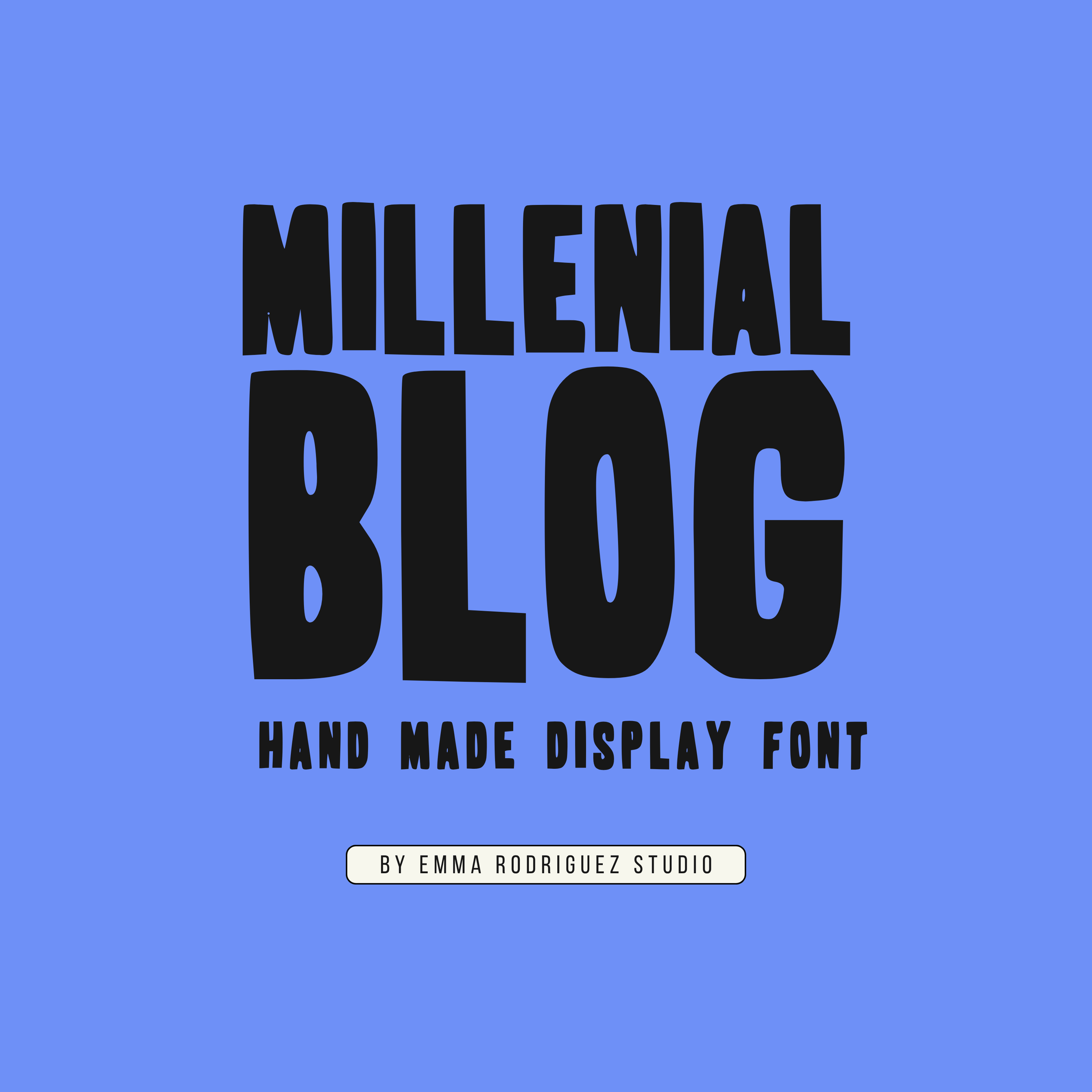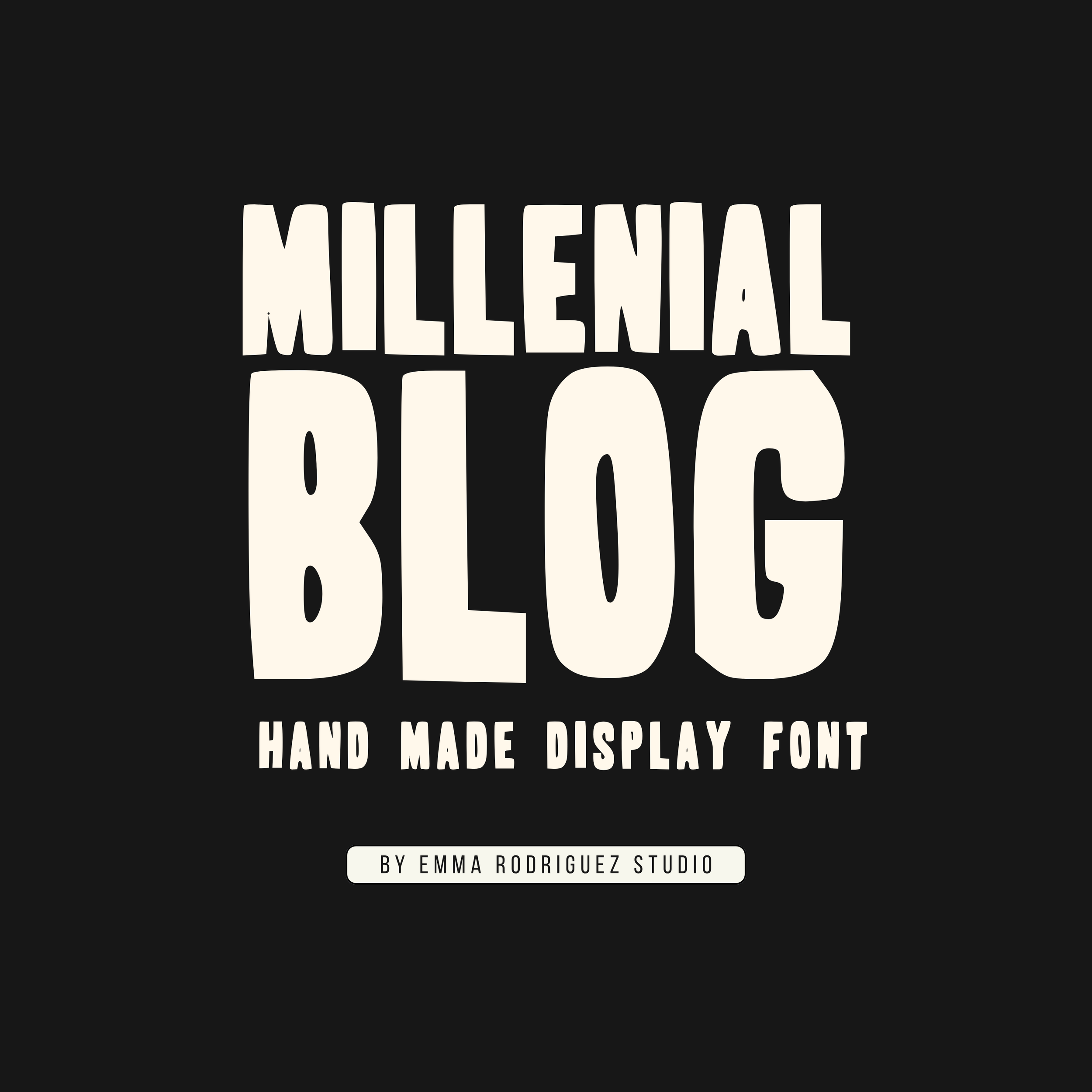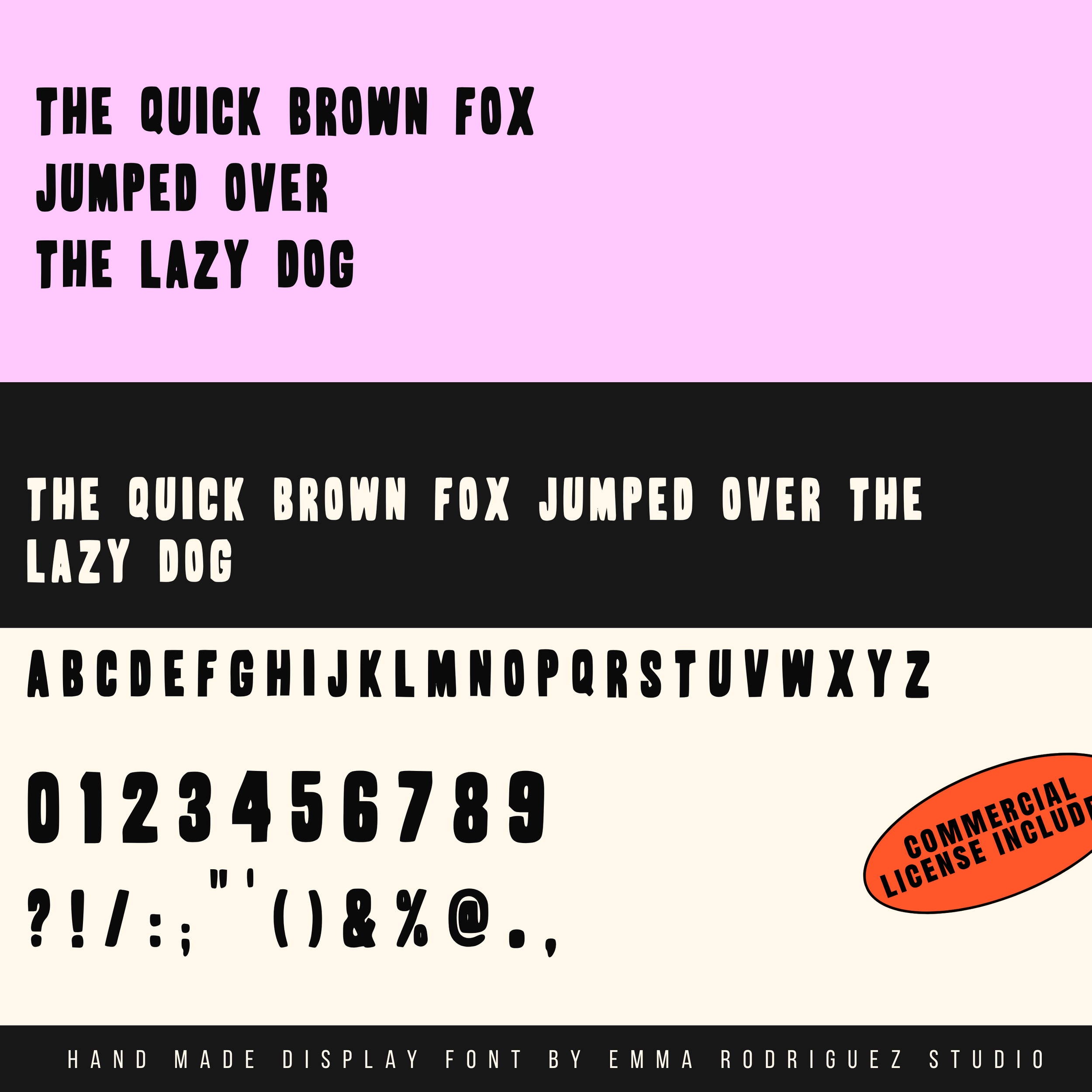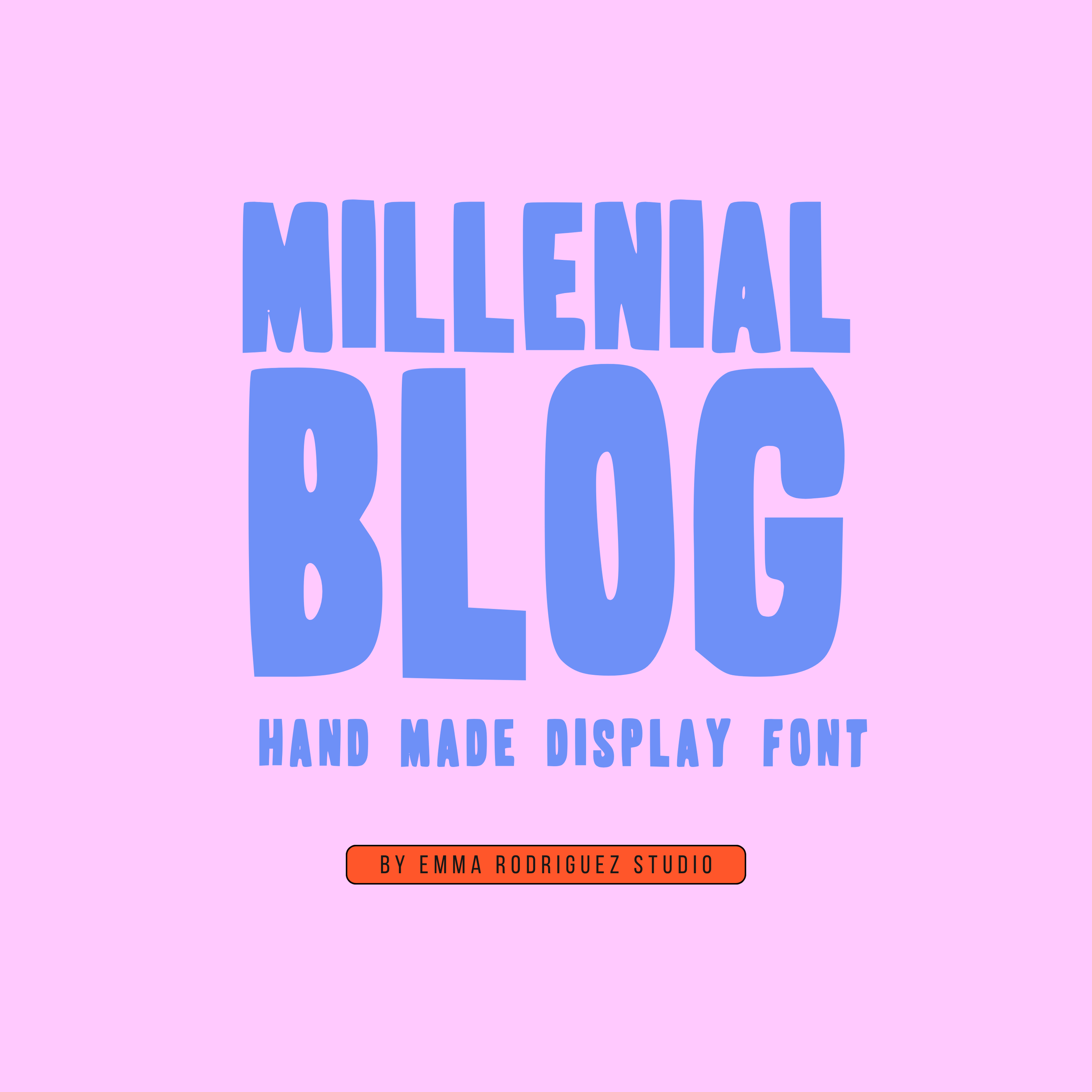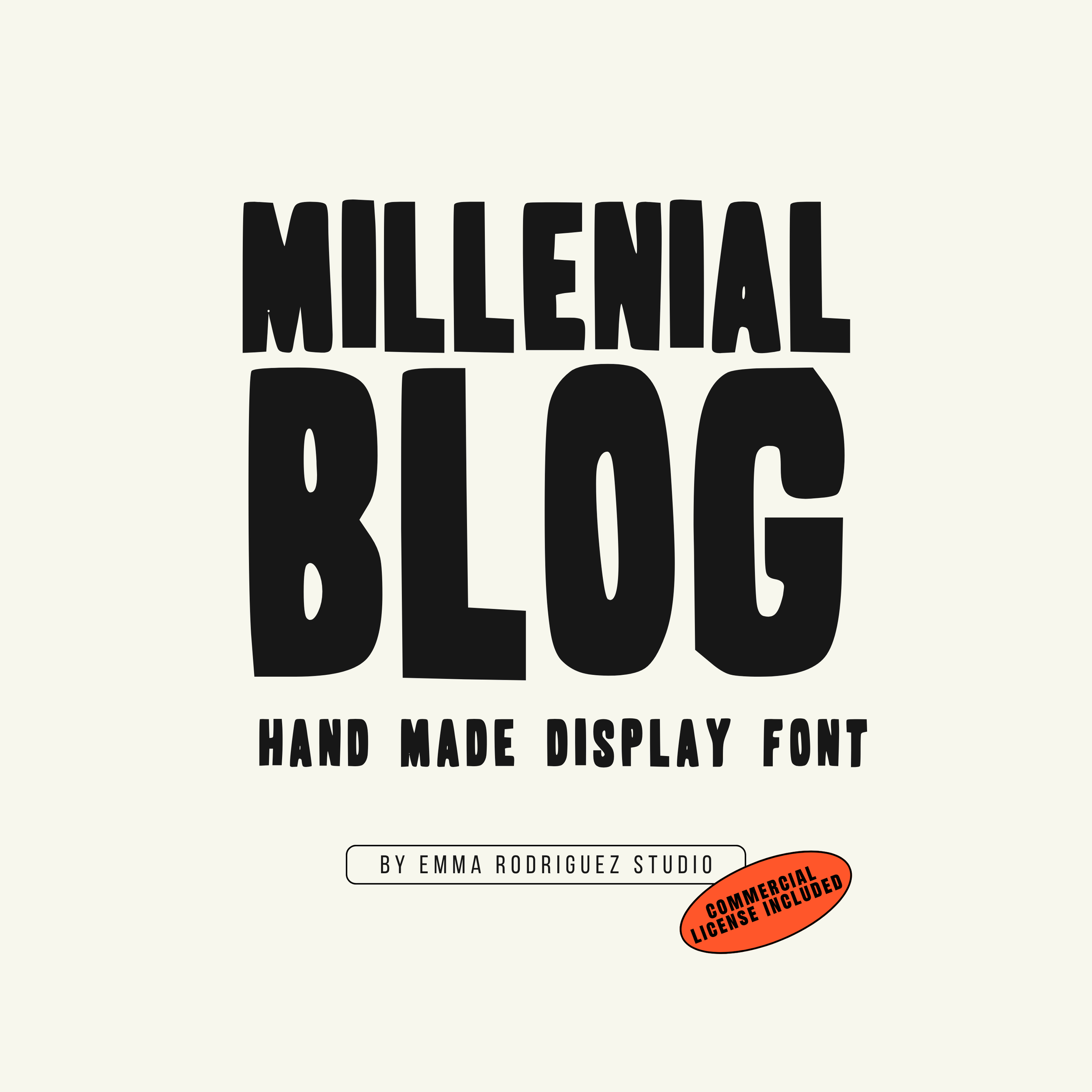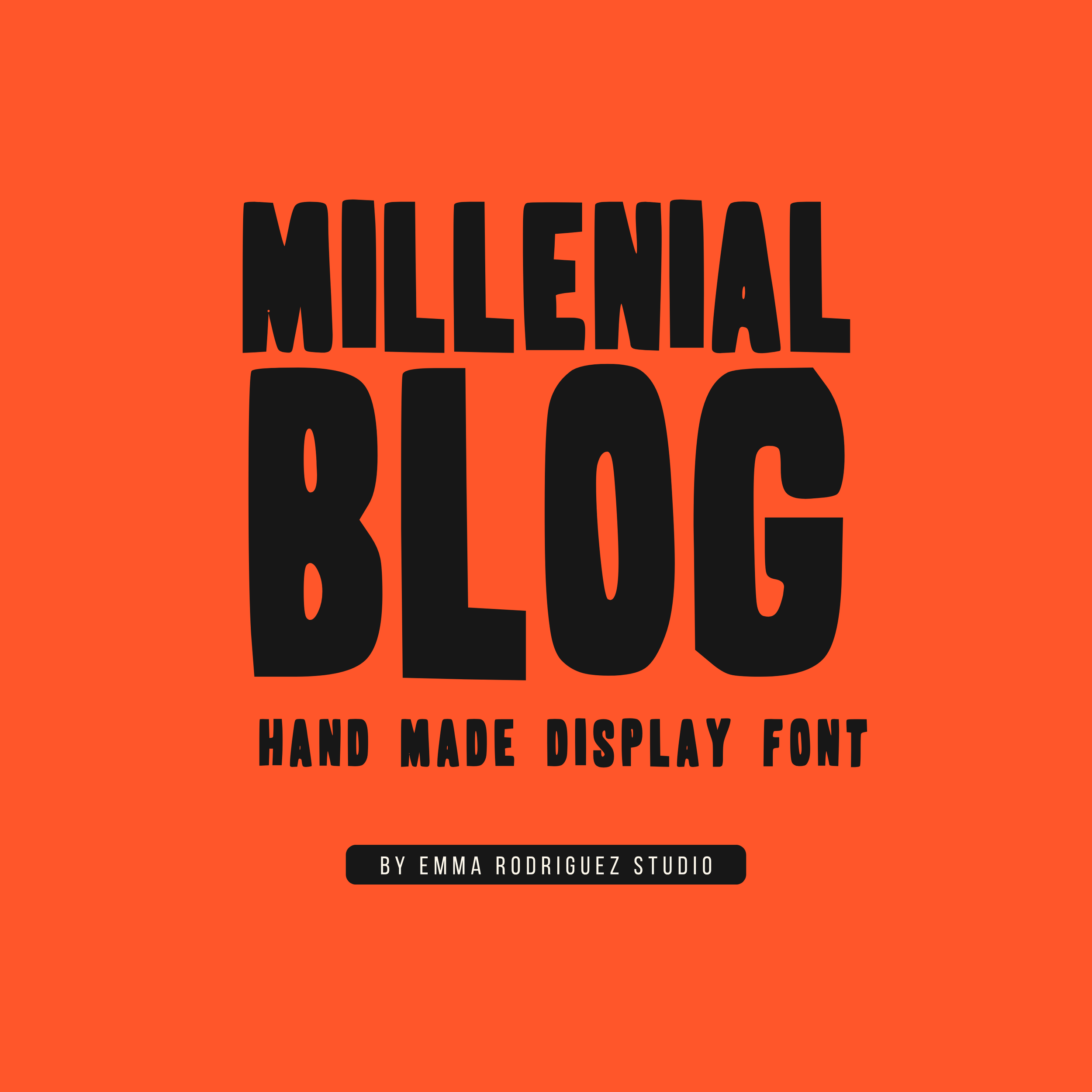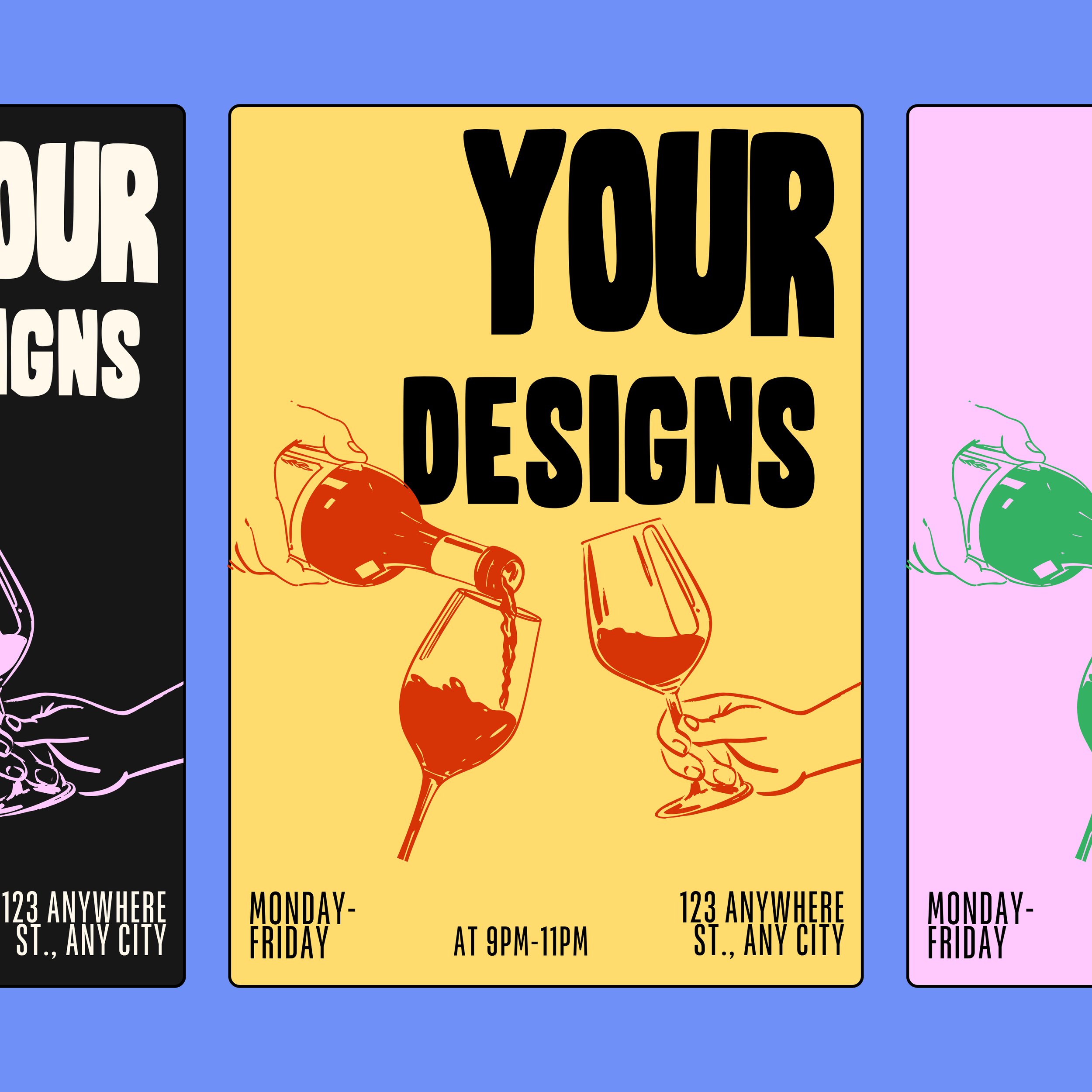
Millenial Blog is a bold hand drawn display font with chunky condensed letterforms, strong vertical shapes and an intentionally imperfect handmade finish. Millenial Blog is for projects that need chunky, awkward, slightly silly typography with zero interest in behaving nicely. It leans into quirky, naive and deliberately unserious design, making it especially suited to expressive branding, posters, packaging and editorial work that needs more personality than polish.
The bold proportions work especially well for contemporary editorial layouts, poster design, branding and packaging where the type needs to do most of the talking. It feels graphic, slightly retro and very unserious, making it a good fit for maximalist work rather than clean minimal design.
Perfect for:
• Posters and art prints
• Editorial layouts
• Branding and logos
• Packaging design
• Magazine-inspired graphics
• Merchandise and apparel
• Album artwork
• Social media graphics
• Product labels
• Creative campaigns
• Statement typography
Please note that Millenial Blog is intentionally handmade and imperfect. Letterforms, spacing, proportions, alignment and overall form may vary throughout the character set. The chunky shapes, uneven widths and irregular spacing are deliberate parts of the design rather than errors, and some manual kerning or letter placement may be useful depending on your layout.